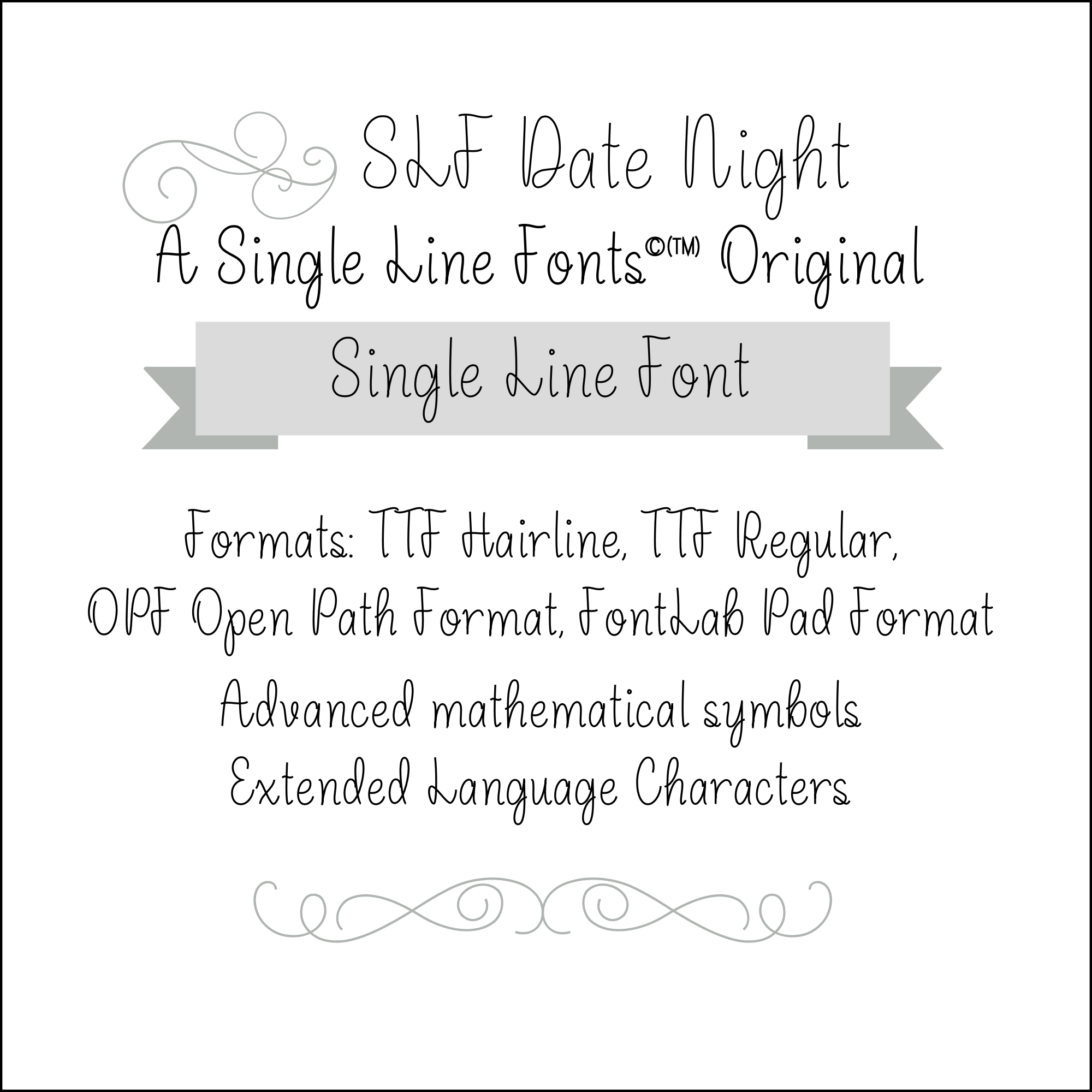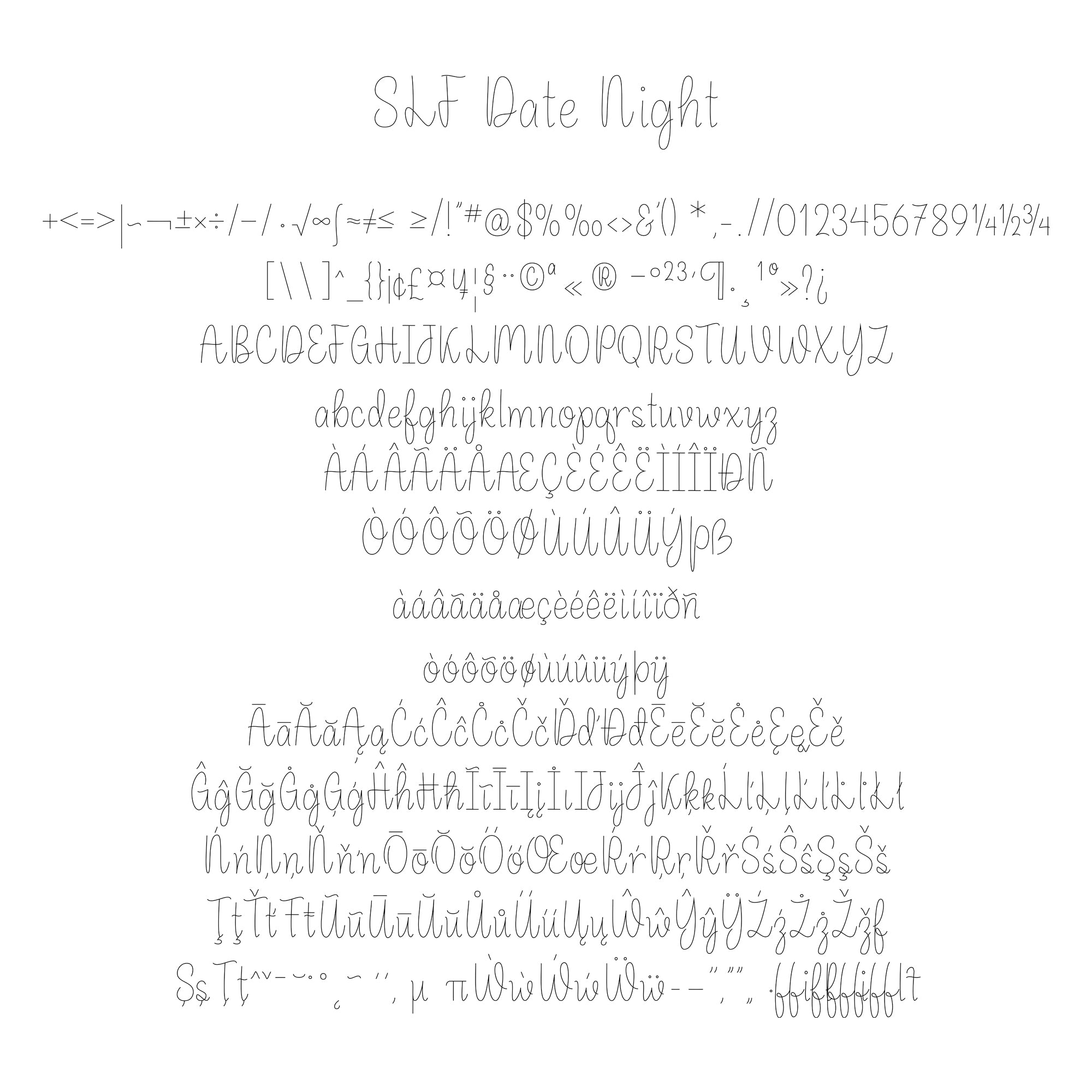
Single Line Font "SLF Date Night"
SLF Date Night: Elevate Your Typography
Introducing SLF Date Night:  Thefont that adds flair to your designs with its exquisite details and versatile functionality. Whether you're crafting invitations, designing signage, or creating eye-catching graphics, this font is your go-to choice for elegance and sophistication.
Detailed Craftsmanship:
• Meticulous Care: This font is a testament to meticulous care and attention to detail. Explore the intricacies of the numbers and financial/mathematic symbols, meticulously crafted to perfection. The complete font set is showcased in the second photo, highlighting its full potential.
Elevate your typography with SLF Date Night: the ultimate sketch pen font for Glowforge projects and beyond. Experience elegance and precision in every character. Unlock the possibilities today.